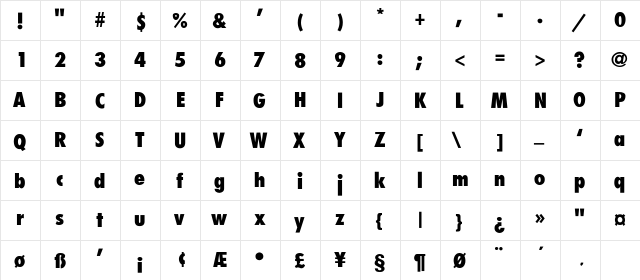
Belmar-CondensedExtraBold-Th Regular
Design Context for Belmar-CondensedExtraBold-Th Typeface
Belmar-CondensedExtraBold-Th offers clean, dependable letterforms without strong stylistic allegiance, making it a practical choice for designers who need flexibility. The heavy weight commands attention and anchors typographic hierarchies. Its narrow stance lets it pack a punch even in space-constrained designs.
Pro Tip: Use Belmar-CondensedExtraBold-Th in both headline and body roles to test its range before committing to a single application.